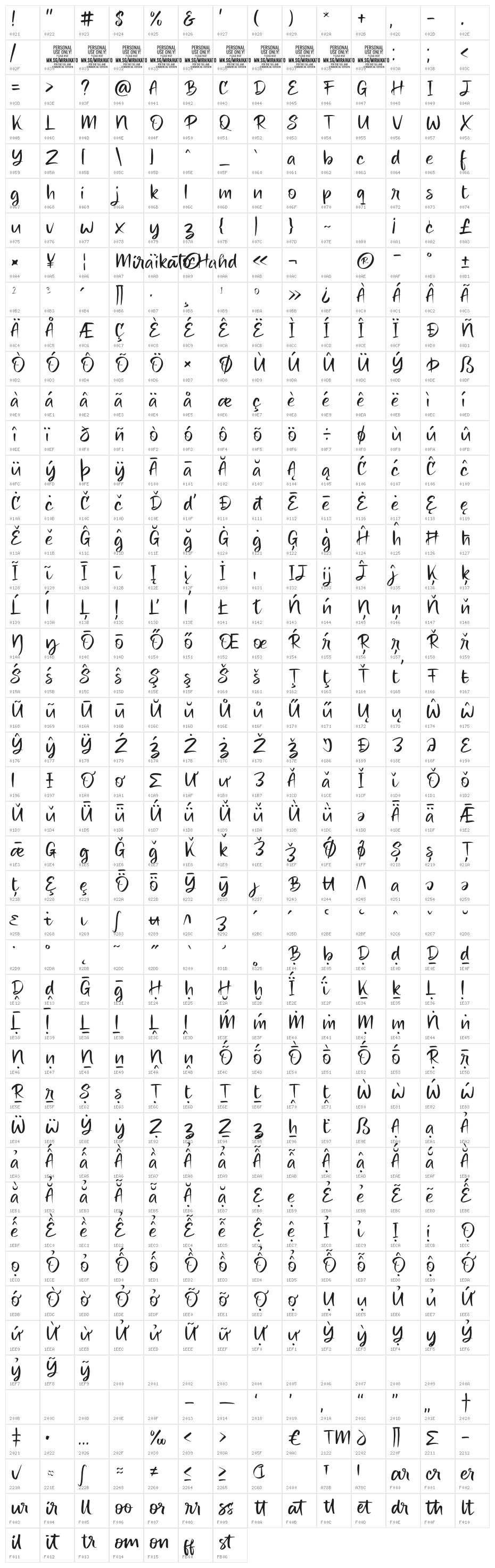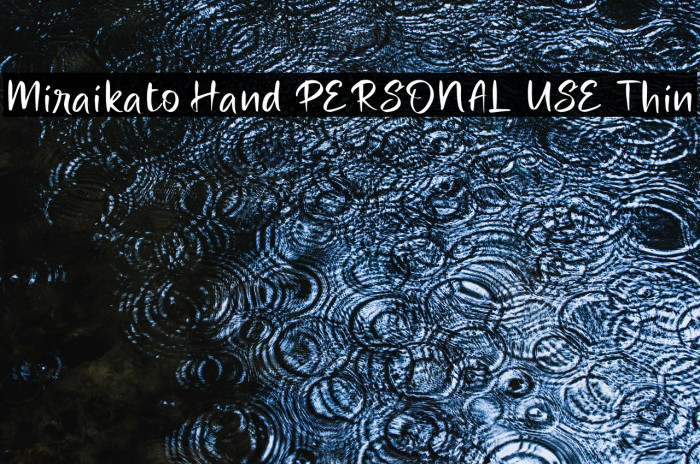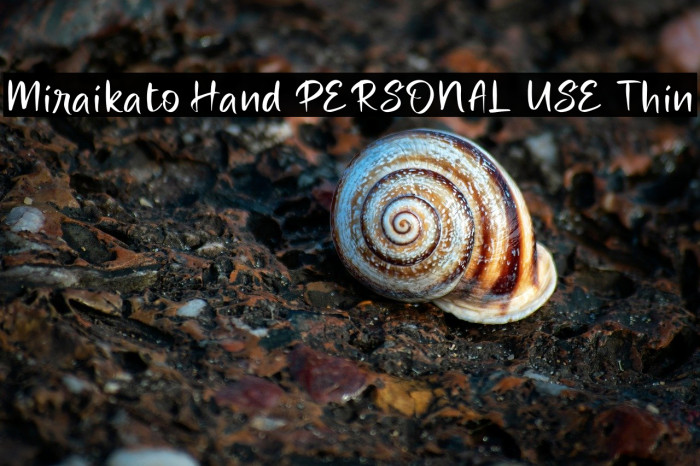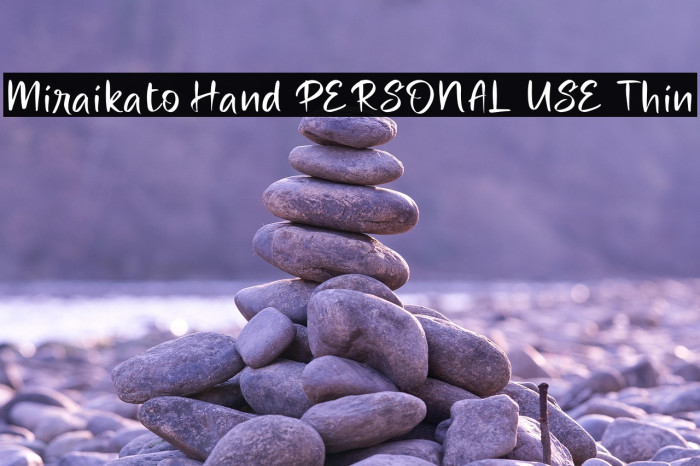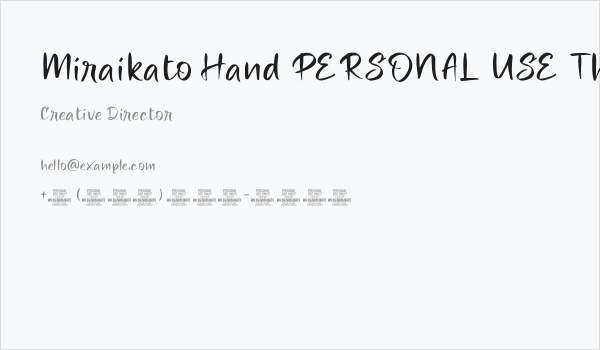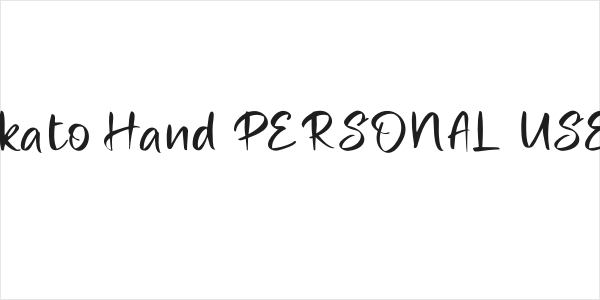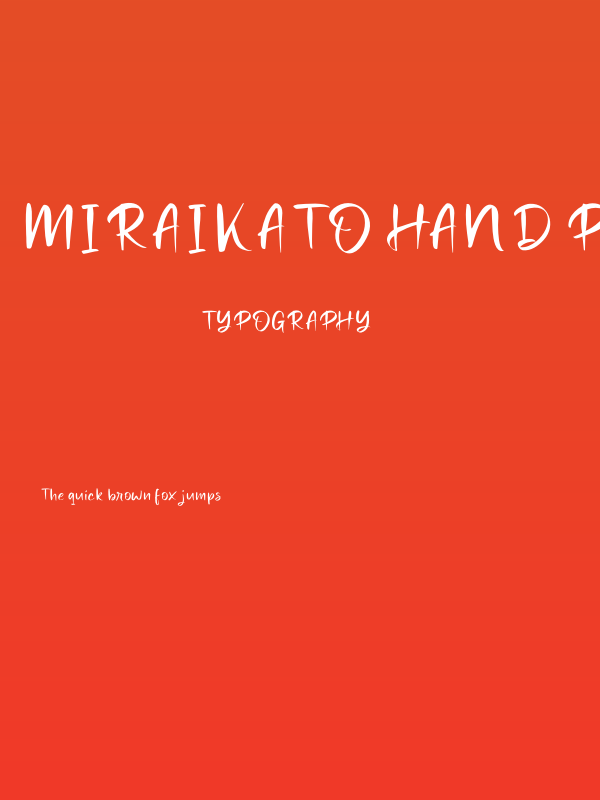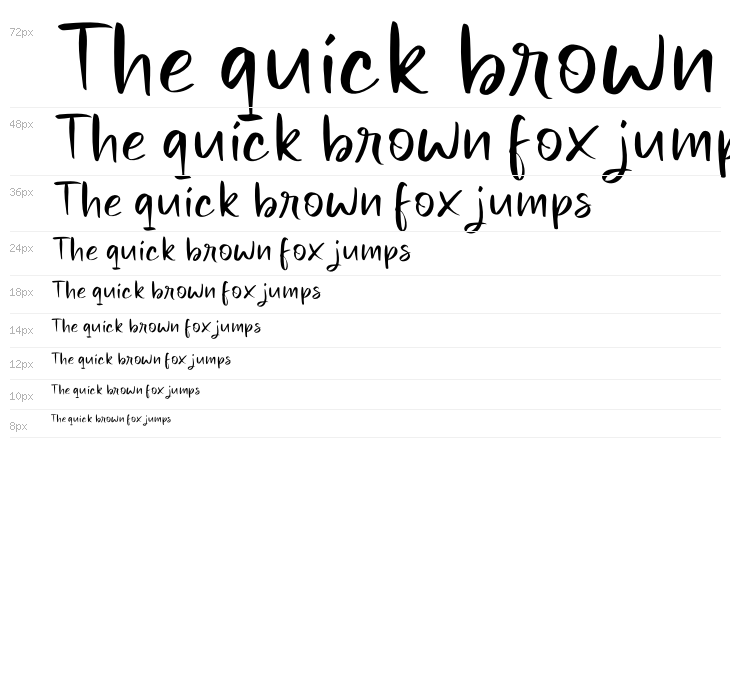
Miraikato Hand PERSONAL USE Thin Font
Miraikato Hand PERSONAL USE Thin Description
This font features a lively and expressive handwritten style, characterized by fluid strokes and a playful aesthetic. The uppercase letters exhibit a bold presence with slightly exaggerated curves, while the lowercase letters maintain a consistent flow, enhancing readability. The numerals and special characters complement the overall design, adding a touch of whimsy. This font's dynamic nature makes it suitable for creative projects, offering a personal and informal touch. The spacing between characters is balanced, ensuring clarity and legibility across various applications.
| Proposed Projects | Ideal for greeting cards, invitations, branding, and social media graphics. |